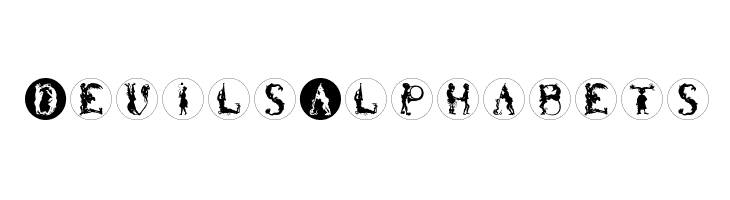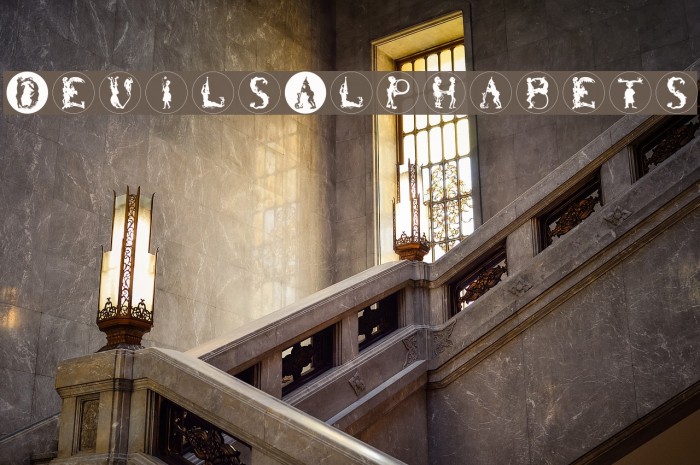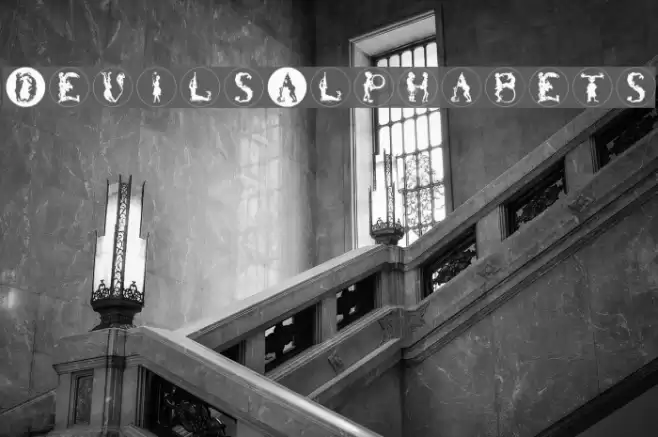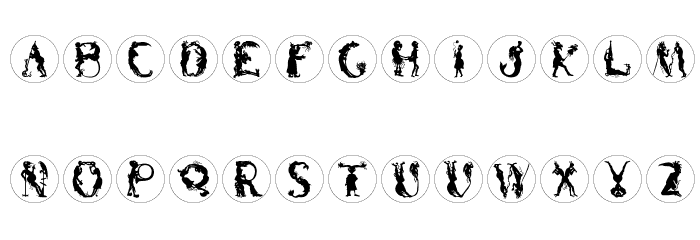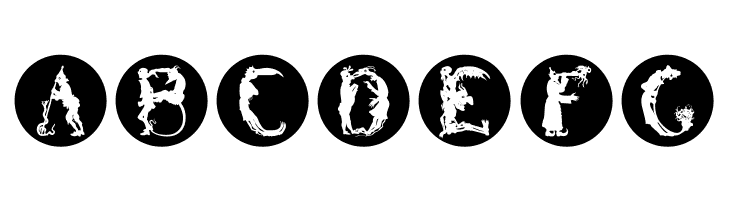
DevilsAlphabets Font
| Caso de uso | Headlines, Posters, Thematic Designs |
| Projetos propostos | Ideal for Halloween-themed designs, horror movie posters, spooky invitations, or any project needing a supernatural touch. |